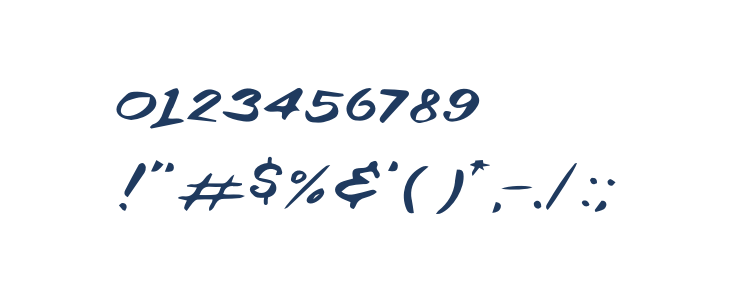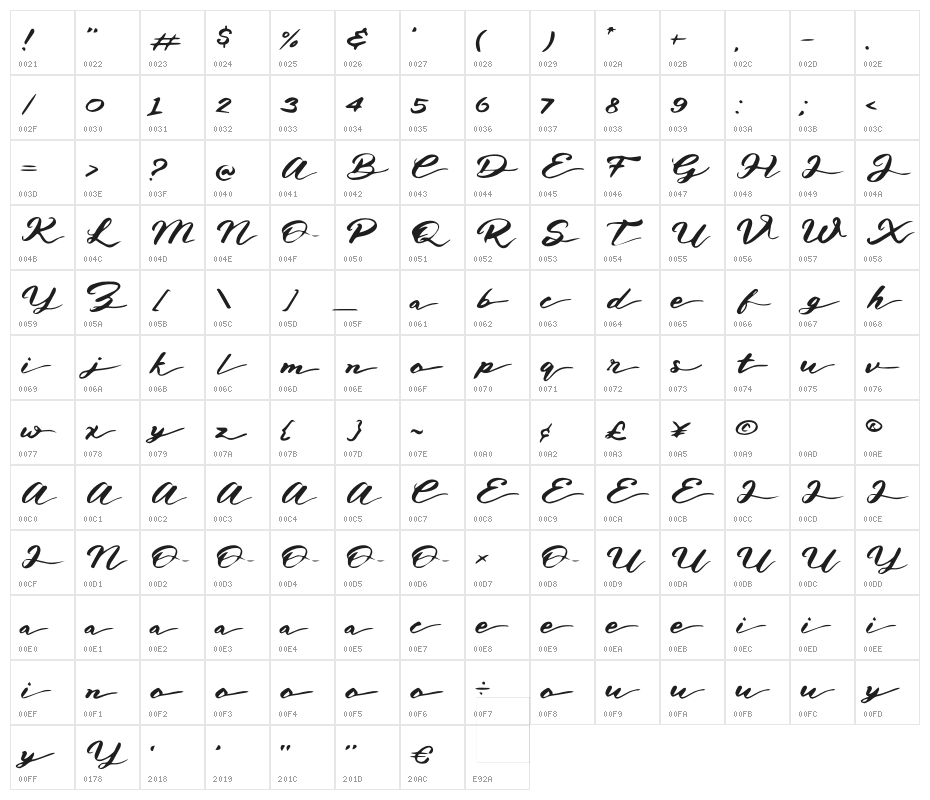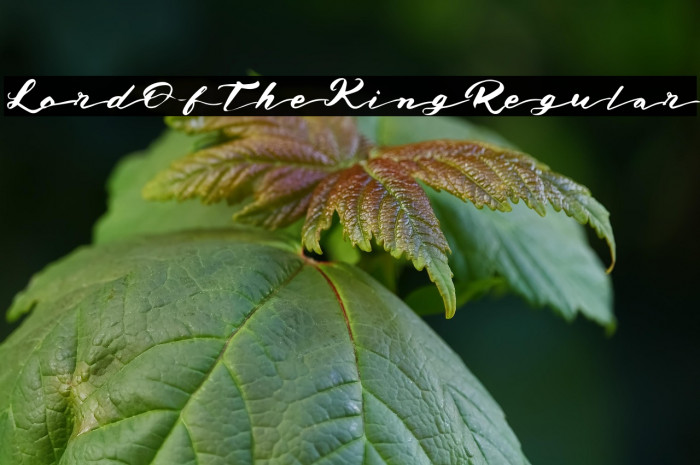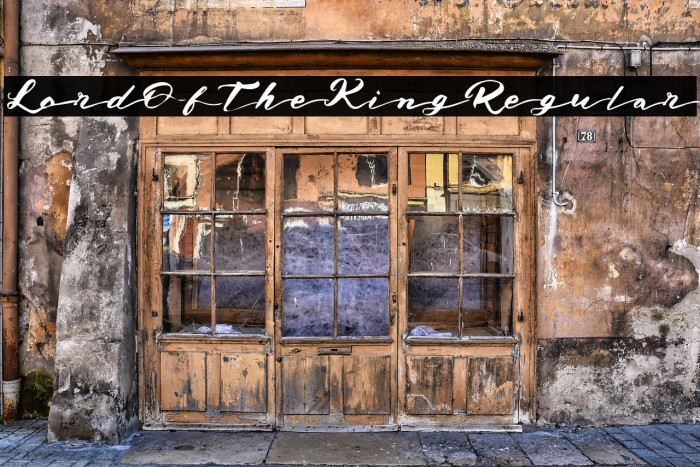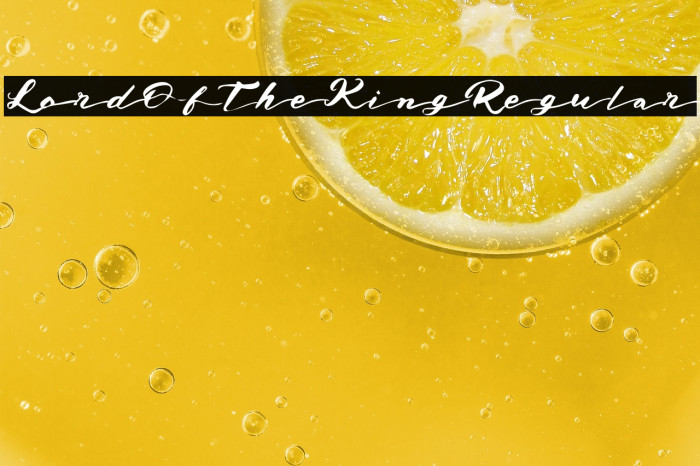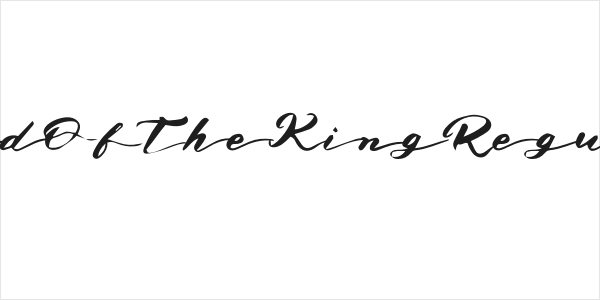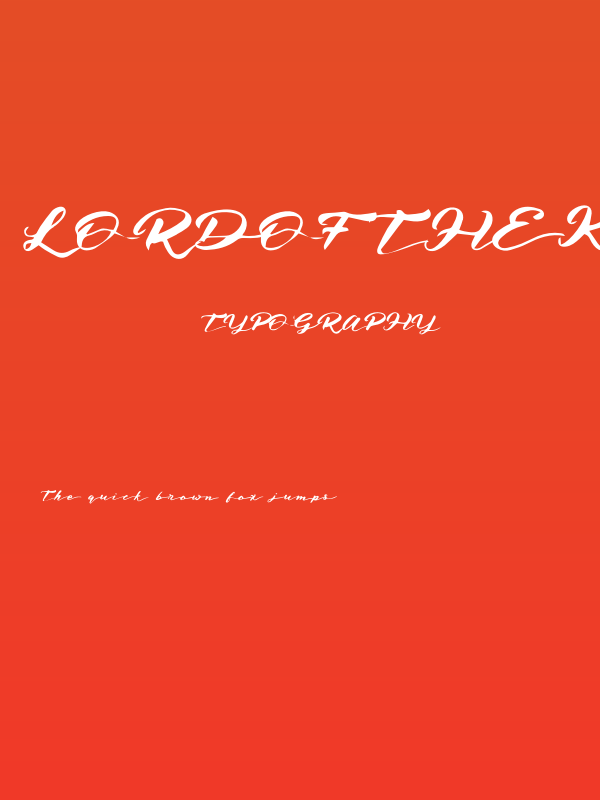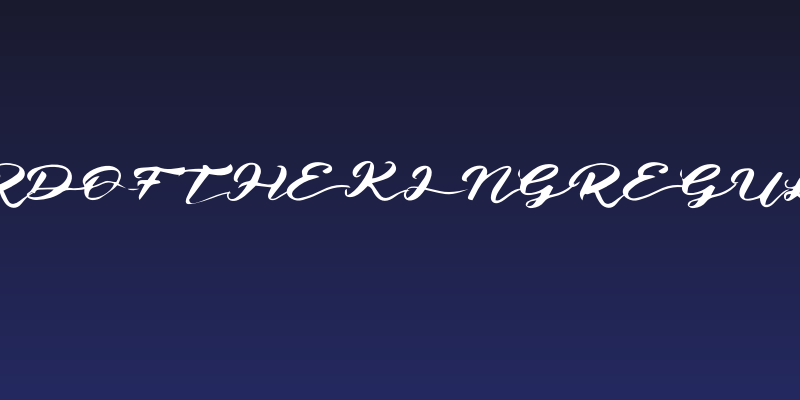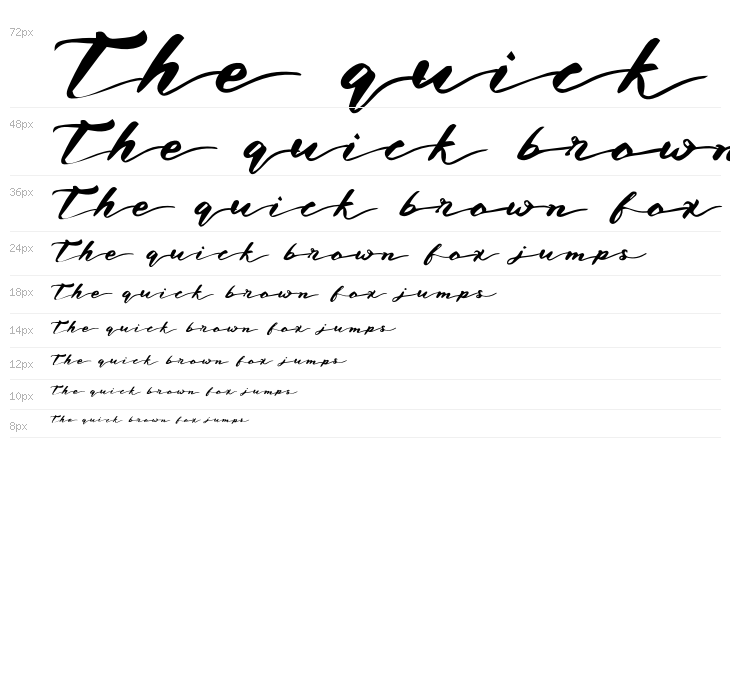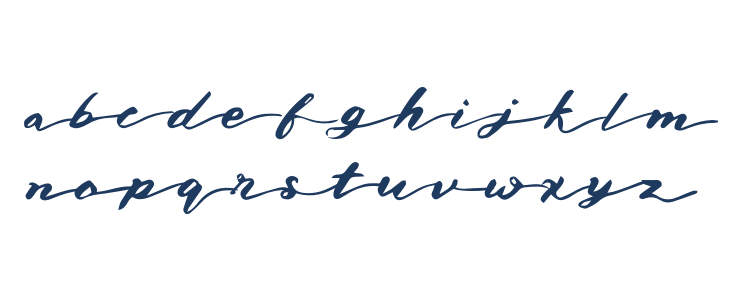
LordOfTheKingRegular Font
LordOfTheKingRegular Description
This font features an elegant and flowing script style, characterized by its smooth, cursive strokes and a sense of fluidity. The uppercase letters are bold and slightly exaggerated, with sweeping curves that give a sense of motion and grace. The lowercase letters maintain a consistent flow, connecting seamlessly for a handwritten appearance. Numbers and special characters are designed to complement the overall style, with a playful yet sophisticated touch. The font's design is both artistic and readable, making it suitable for creative projects that require a personal and stylish touch.
Use CaseLogos, Invitations, Decorative text
Proposed ProjectsIdeal for wedding invitations, greeting cards, branding, and elegant logo designs.